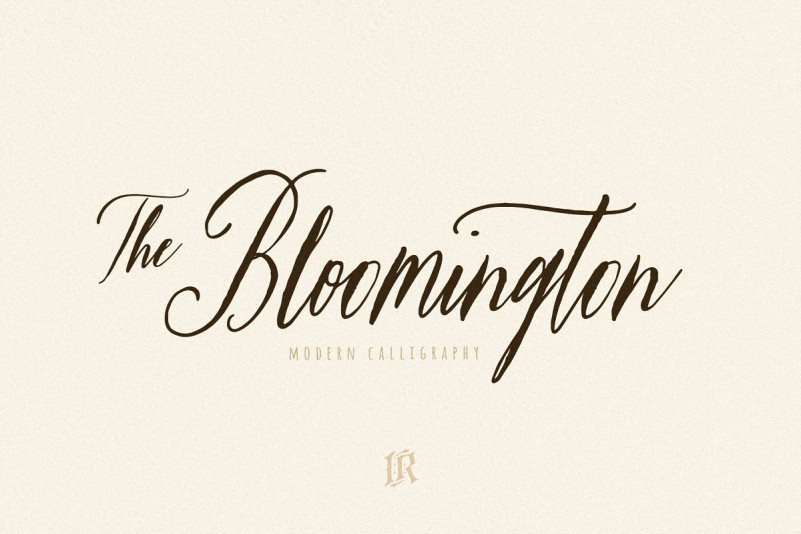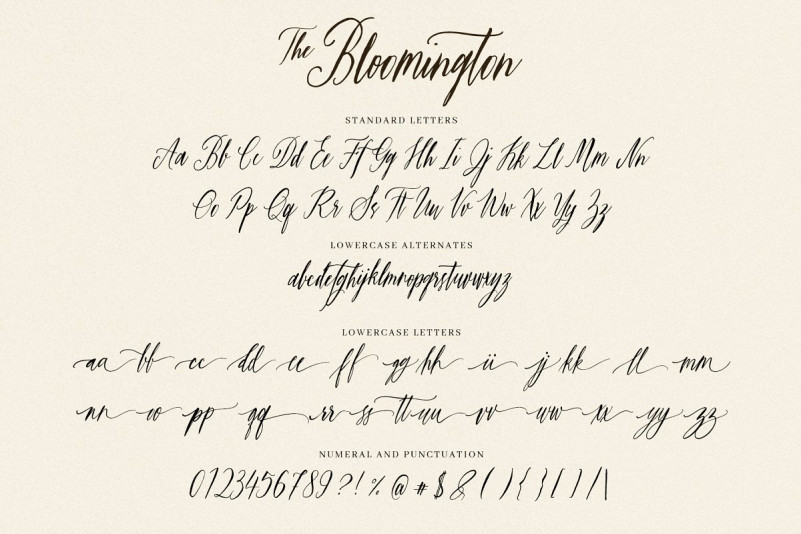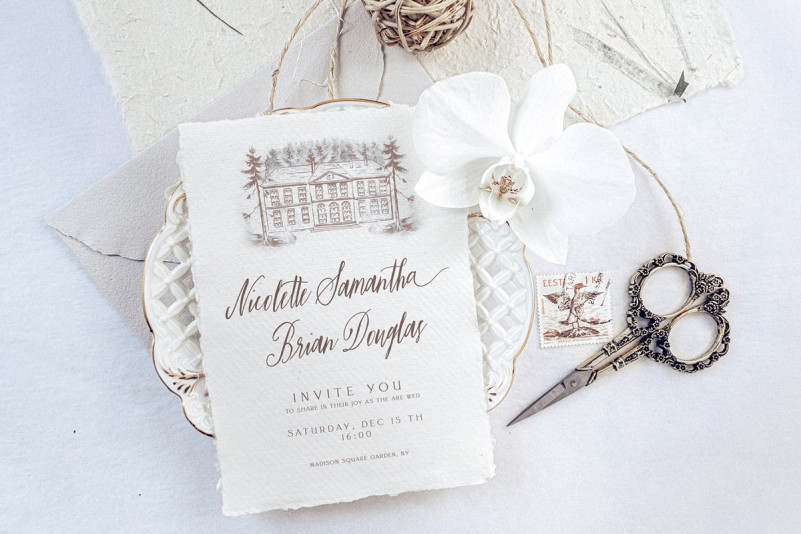
The Bloomington Font
The Bloomington is a modern calligraphy font with multilingual support for Western and Central Europe. It’s ideal for blog website, instagram, branding, invitations, business cards, weddings and many more.